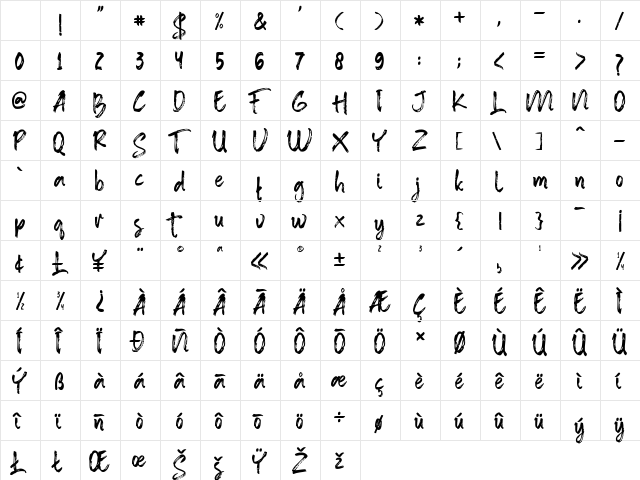
Complete Anther Brush Regular glyph index. Displaying only characters natively supported by Anther Brush Regular font.
Anther Brush flows with the natural rhythm of handwritten lettering, making it ideal for designs that call for warmth and personal expression.
Font Pairing: Combine Anther Brush with a simple geometric sans for maximum contrast - the tension between flowing curves and clean structure is a classic typographic pairing.
Pro Tip: Use Anther Brush for short runs of text - names, titles, or taglines. Extended body copy in script faces tires the eye quickly.